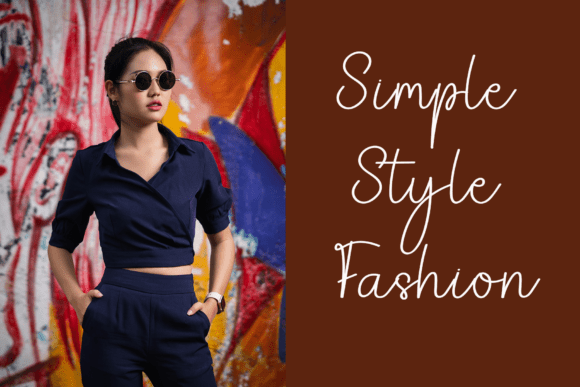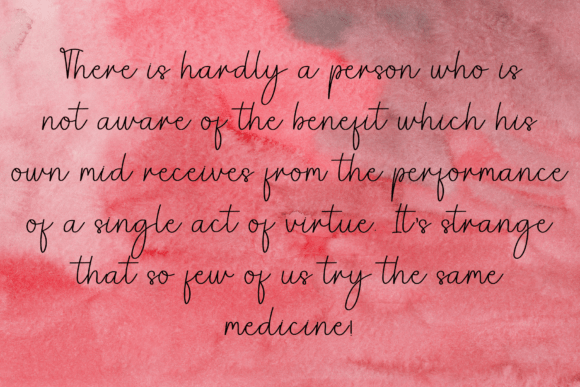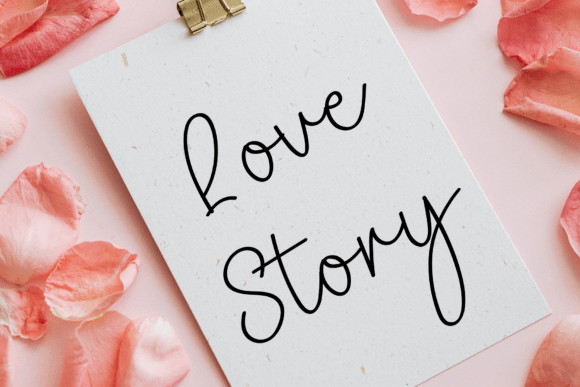
Introduction to Overtinker Font
Have you ever been working on a creative project, pouring your heart and soul into it, only to feel like something’s missing? That’s when you stumble upon the perfect design element – the right font can make all the difference. For designers, finding the perfect font can be a game-changer. It’s what takes your design from good to great, and that’s exactly what the Overtinker Font aims to do.
| 👤 Author | K_IN Studio |
With its casual and creative vibe, the Overtinker Font exudes warmth and friendliness, making it perfect for personal projects, invitations, and social media graphics. Its round, playful strokes create a relaxed and approachable feel, adding a fun and unique touch to any design. Whether you’re working on a high-quality project or just need a free download for a quick design, the Overtinker Font is an invaluable design resource.
Key Features of Overtinker Font
- High-quality design suitable for various creative projects, including logos, graphics, and digital art.
- Designed with a unique aesthetic, the Overtinker Font is perfect for those looking for a distinctive and eye-catching typeface.
Honest Review: Overtinker Font
As a designer, I’m always on the lookout for high-quality fonts to elevate my creative projects. I recently stumbled upon the Overtinker Font, and I’m excited to share my honest review with you.
What works well: ✨ The Overtinker Font is incredibly versatile and comes with a range of styles and weights. It’s perfect for designers who want a font that can adapt to different design contexts. I also appreciate that it’s a free download, making it an excellent design resource for projects on a budget.
- High-quality design: The font’s design is sleek and modern, making it a great addition to any design project.
Limitations: ⚠️ While the Overtinker Font is excellent, I do have a few minor complaints. The font’s bold weight can sometimes feel a bit too bold, and the italic style could be more pronounced.
Overall impression: I’m thoroughly impressed with the Overtinker Font, and I’d definitely recommend it to fellow designers. It’s a great design resource that’s perfect for creative projects, and its free download makes it an excellent value for the price.
Transparency and Customization
The Overtinker Font features a transparent background, allowing you to easily combine it with other design elements. Experiment with different font sizes, colors, and styles to get the most out of this versatile design resource.
Use the Overtinker Font for a variety of creative projects, such as:
- Graphic design and visual branding
- Print design and publishing
- Infographic creation and data visualization
Tips for Getting the Most Out of Overtinker Font
Experiment with different font combinations and styles to create unique and eye-catching designs. Don’t be afraid to push the boundaries and try new things – the Overtinker Font is a high-quality design resource that can help take your creative project to the next level.